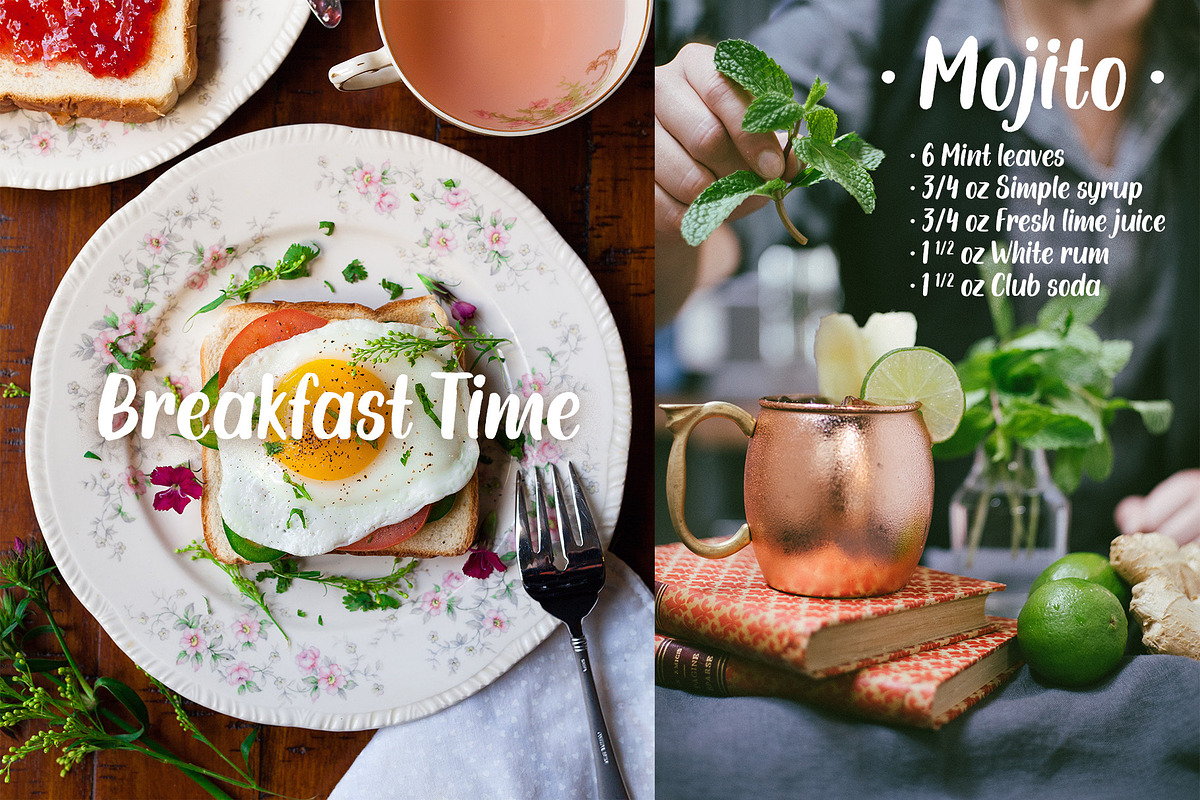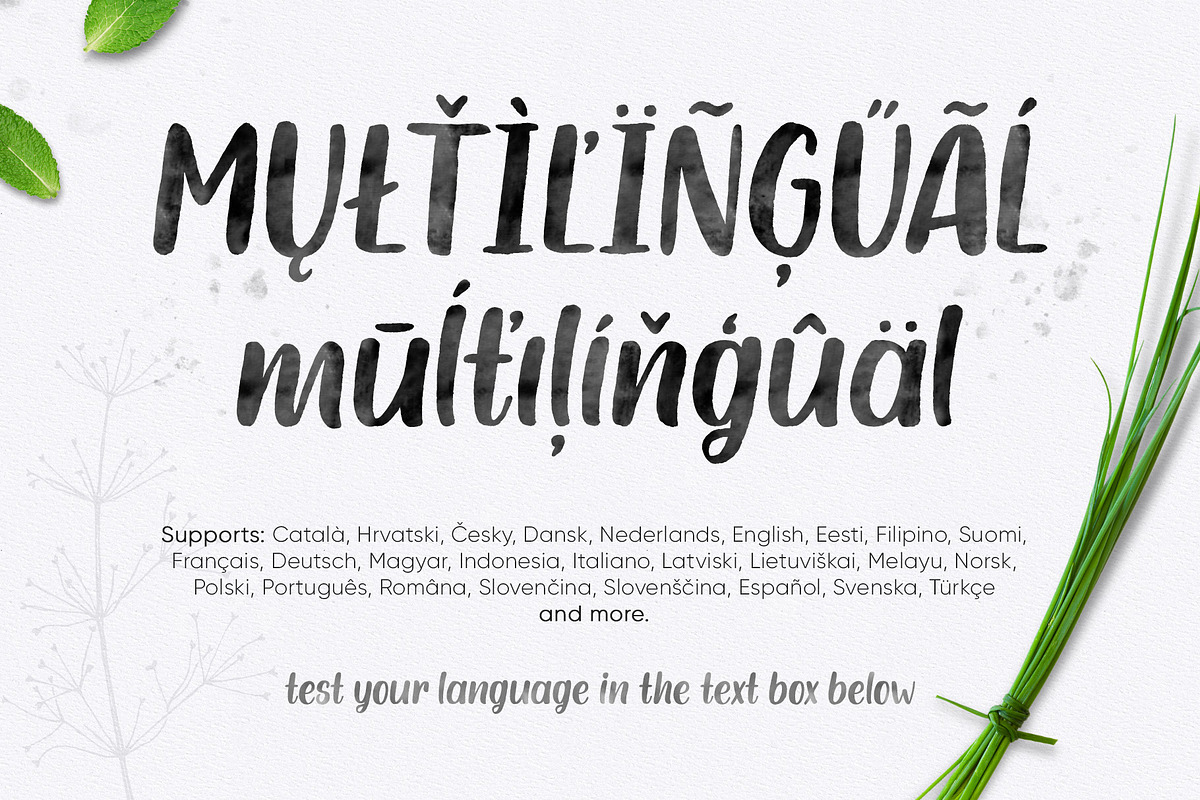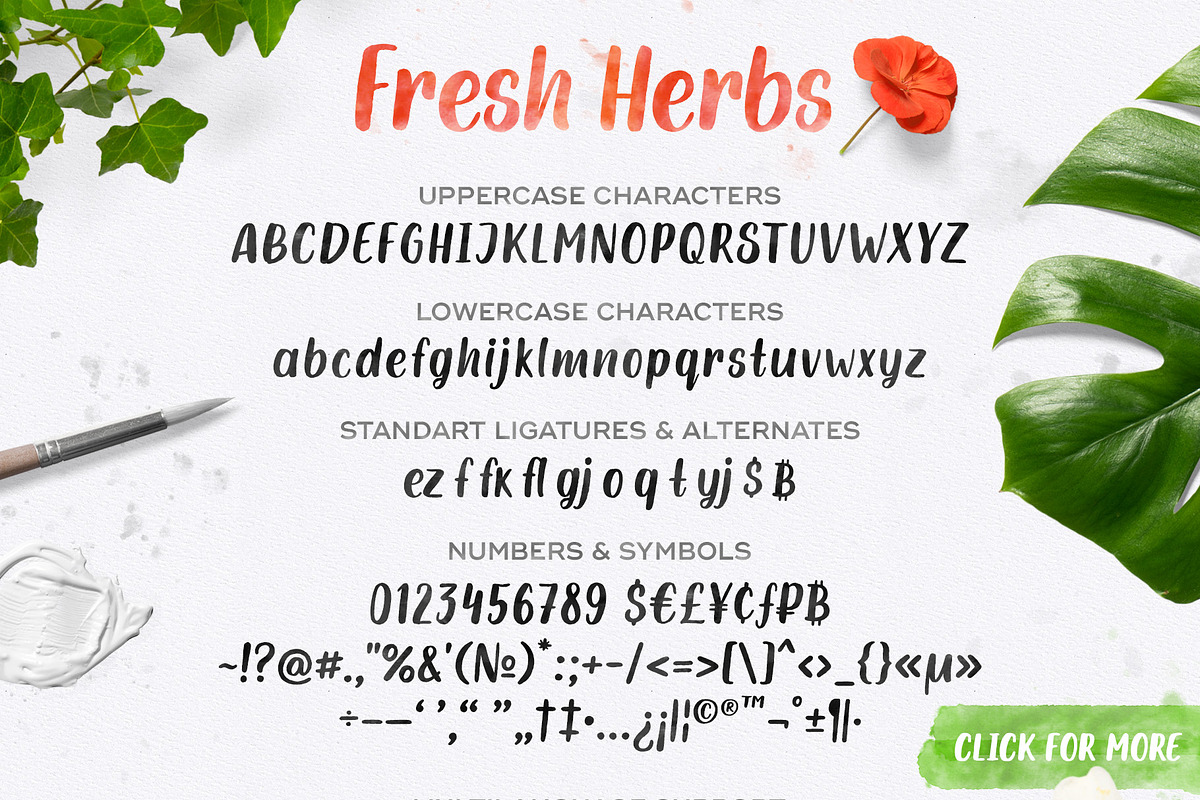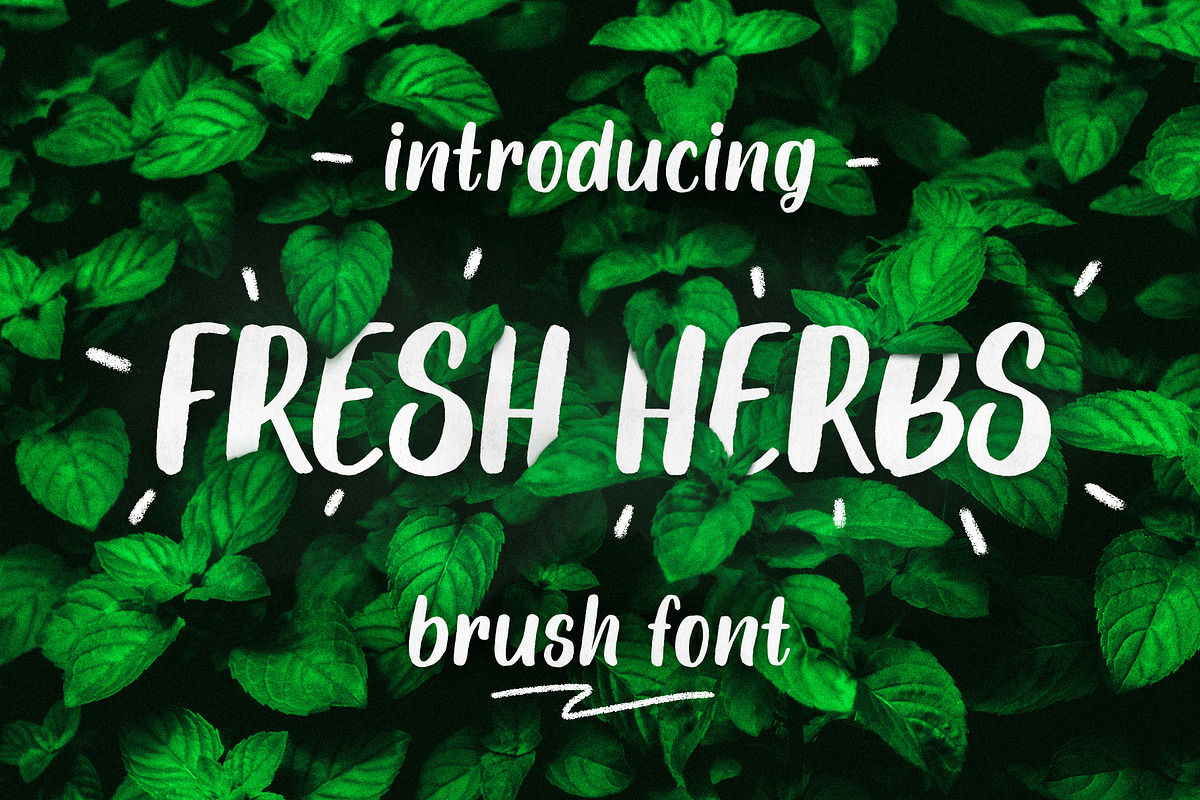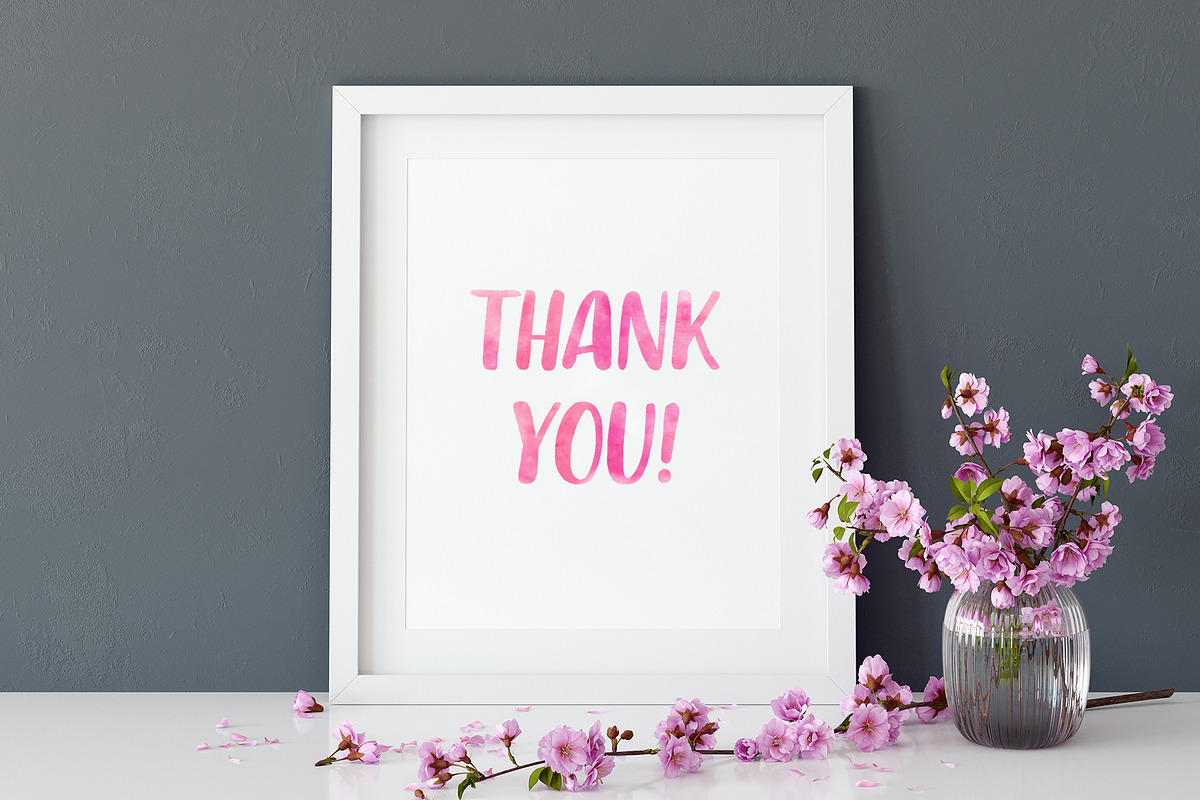
Fresh Herbs Font
FRESH HERBS is a hand drawn brush font with rough edges (visible in the big size) and 398 characters and extensive Latin-based languages support. This font looks good when typing small inscriptions, and long texts too. You can type the title in only uppercase letters and it will also look tasty. Use Fresh Herbs font for text on photo, cards design, product packaging, apparel and any any more purposes which needs typography.
Includes multilingual support for Latin-based languages (please test your language in the text box below before purchase)
Now in font added opentype features: CASE for Uppercase punctuation, SALT to activate all alternates, LIGA with standard ligatures, CALT for smart glyphs replace (like --- to emdash), LOCL -localization for NLD MOL ROM and CAT languages, stylystic sets SS01 - SS05 duplicate features SALT & LOCL. All feature can activated in Adobe Illustrator or Indesign in Opentype panel.